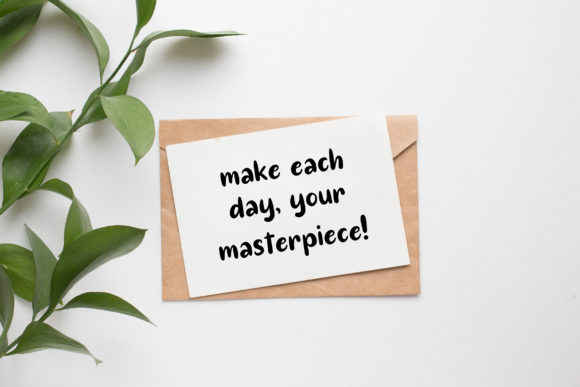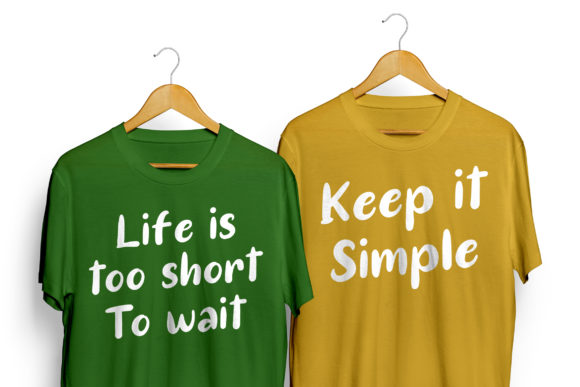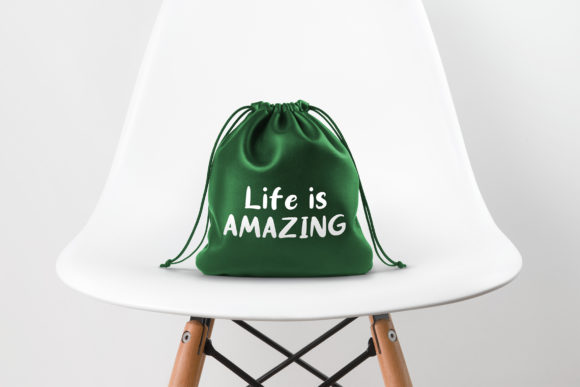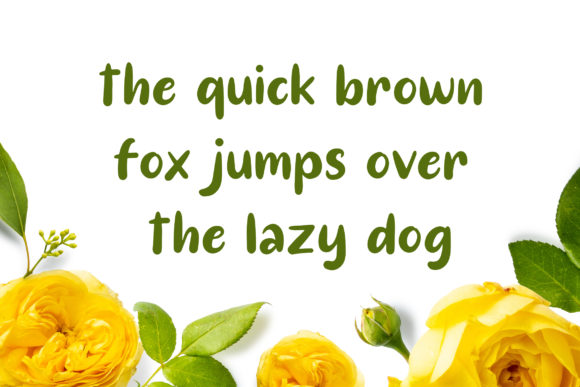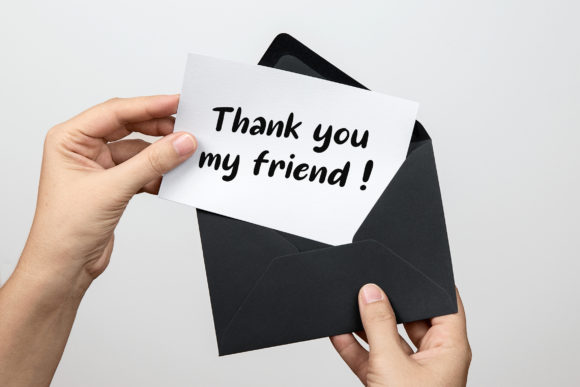
HomeScript FontsRawinda Font Script Fonts Rawinda Font FacebookXPinterestWhatsApp Rawinda Font Poster 2 Rawinda Font Poster 3 Rawinda Font Poster 4 Rawinda Font Poster 5 Rawinda Font Poster 6 Rawinda Font Poster 7 About Rawinda Font Rawinda is a fresh handwritten typeface crafted with care. It will add a romantic touch to any crafting project! DOWNLOAD ON CREATIVE FABRICAThis font is sold and delivered by Creative Fabrica. Font Canyon may earn a commission if you buy through this link. People also explored Wonderland Font Lindkvist One Chubby Boys Font Mingser Font Valenttino Font Bellisia Font White Balance Font Mama Lova Font Vitalia Sesha Font 274 0 TagsRawinda Font Previous articleRumble Tattoos FontNext articleShikatta Font LEAVE A REPLY Cancel reply Comment: Please enter your comment! Name:* Please enter your name here Email:* You have entered an incorrect email address! Please enter your email address here Website: Save my name, email, and website in this browser for the next time I comment. Personal Use Free Pasile Personal Use Free Read more about this font Ennobled Pet Personal Use Free Read more about this font Bestlife Personal Use Free Read more about this font Bahjera Personal Use Free Read more about this font BLOG Free vs Paid Fonts: Why Investing in Premium Fonts Is Worth It Free vs Paid Fonts: Why Premium Fonts Are Worth It in 2025 The debate of free vs paid fonts continues in the design world. While... Fonts That Capture the Spirit of New York City Top 10 Handwritten Fonts That Elevate Your Designs Modern Sans-Serif Fonts That Brands Love in 2025